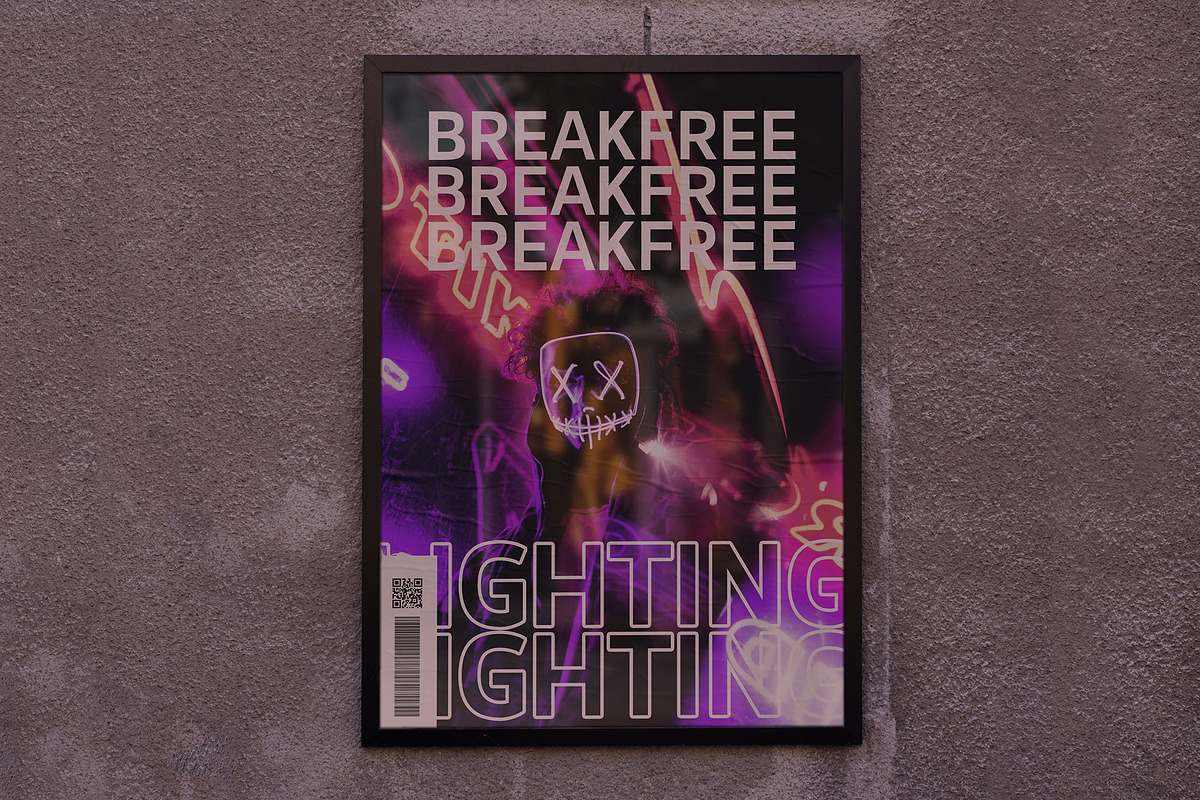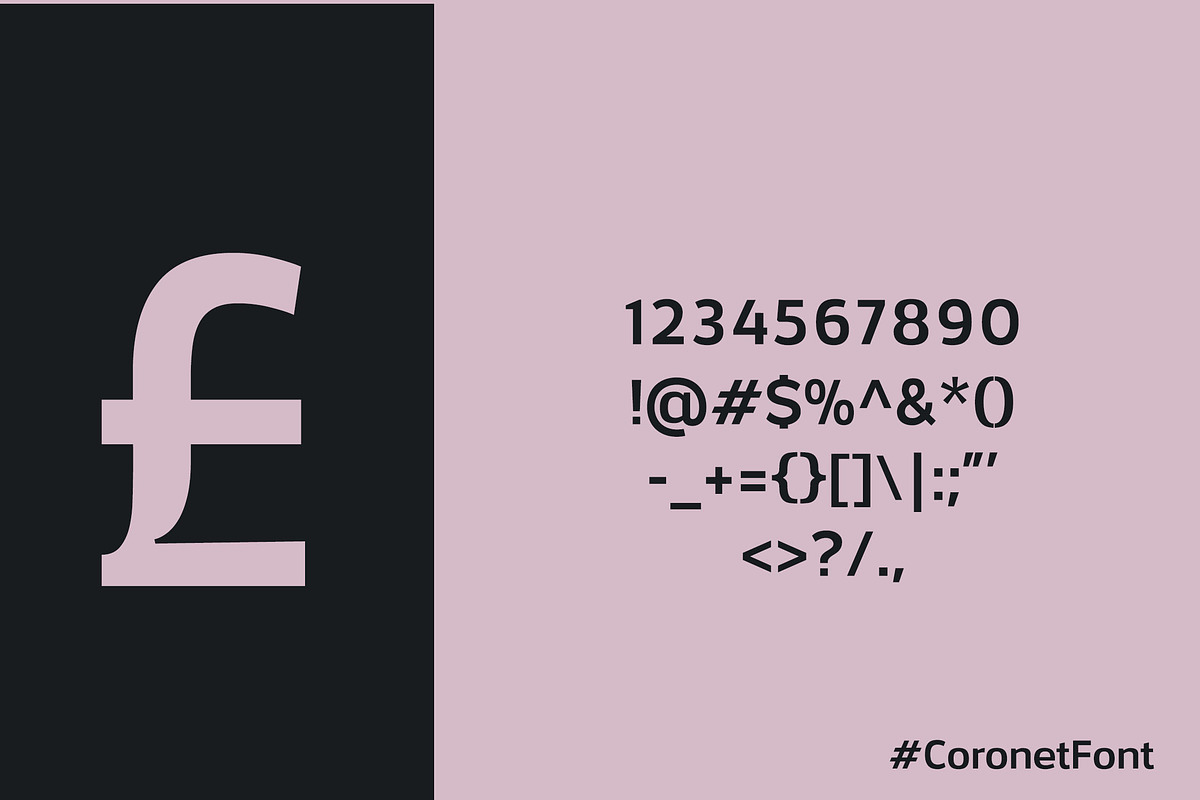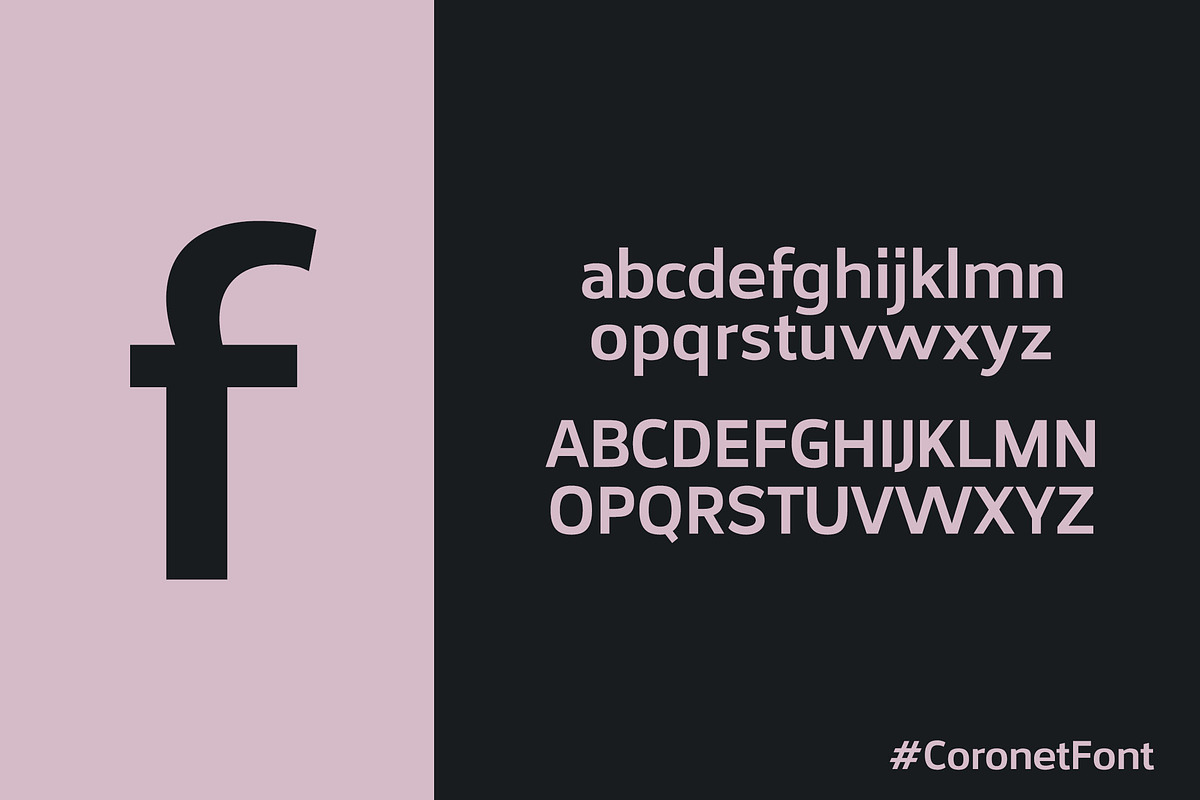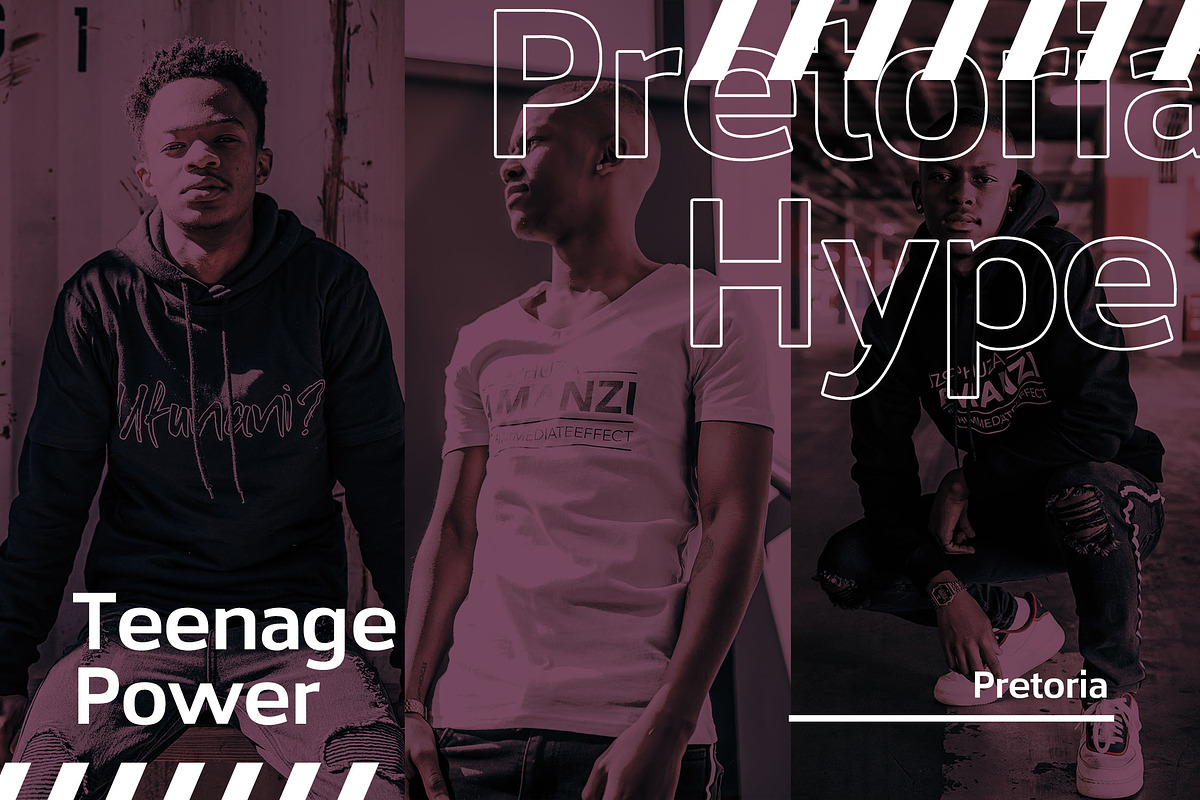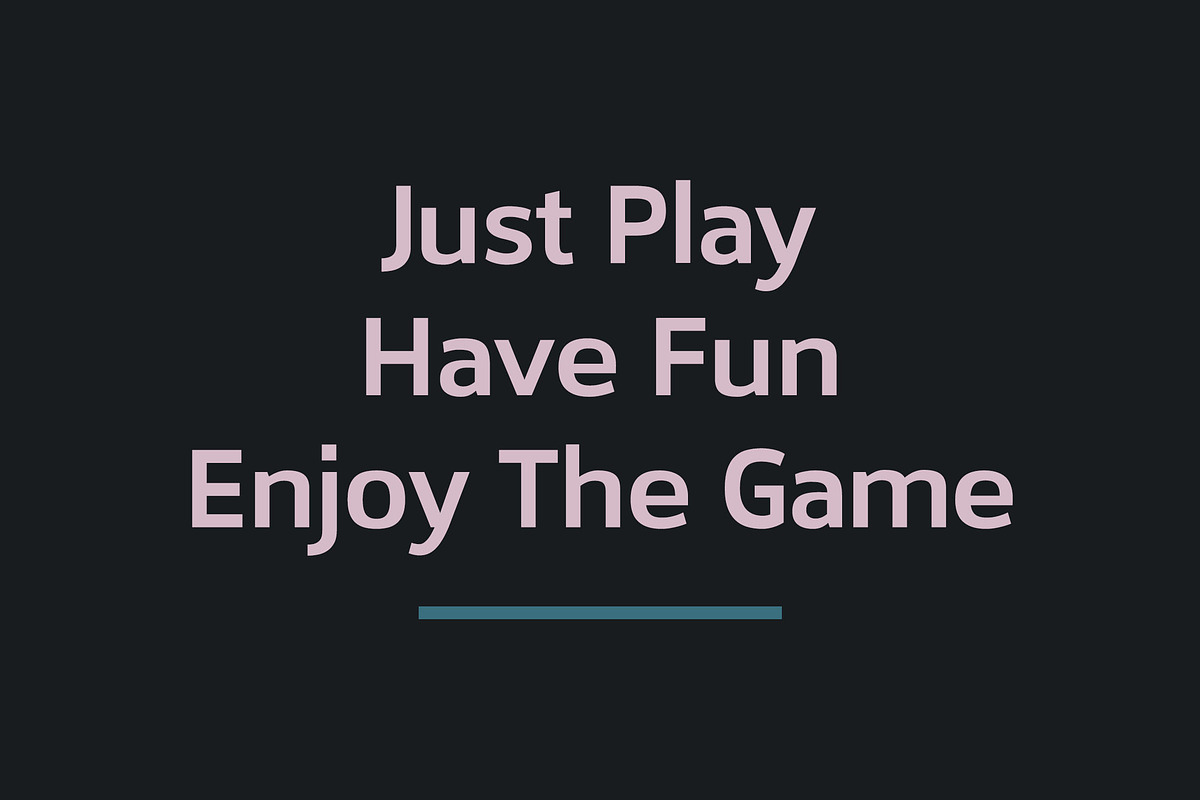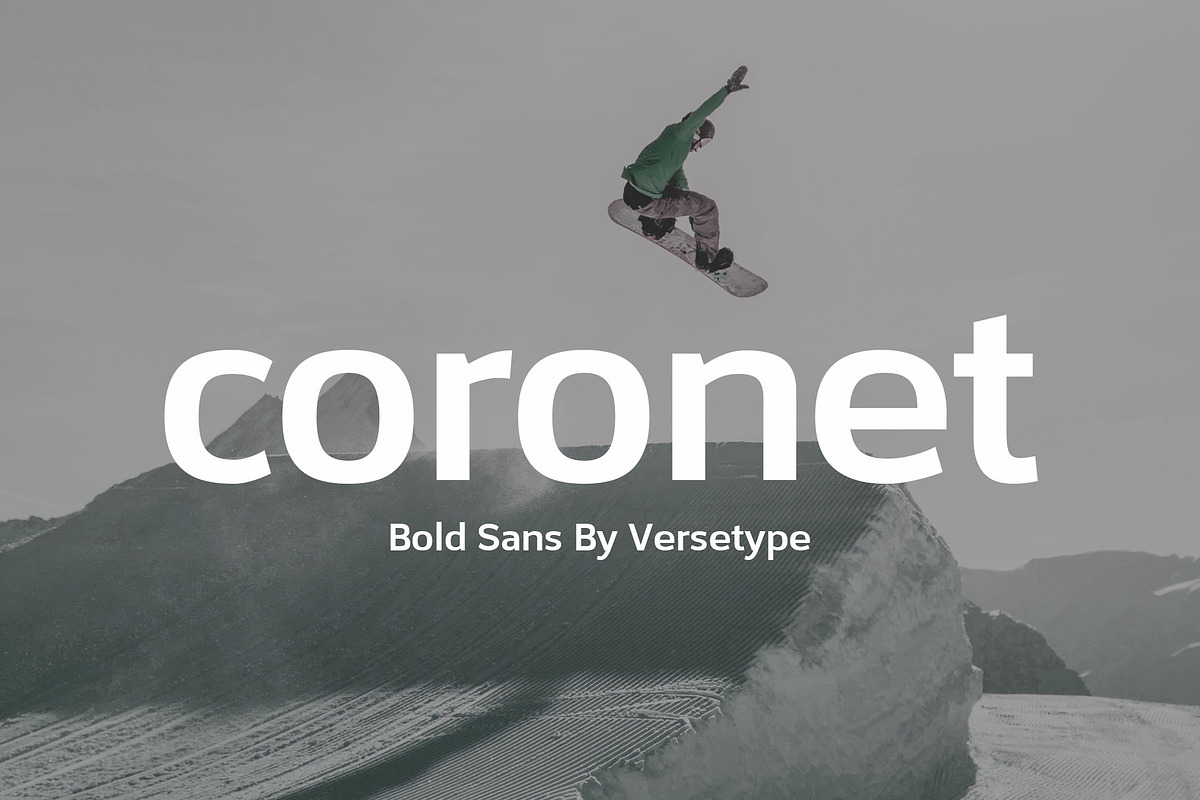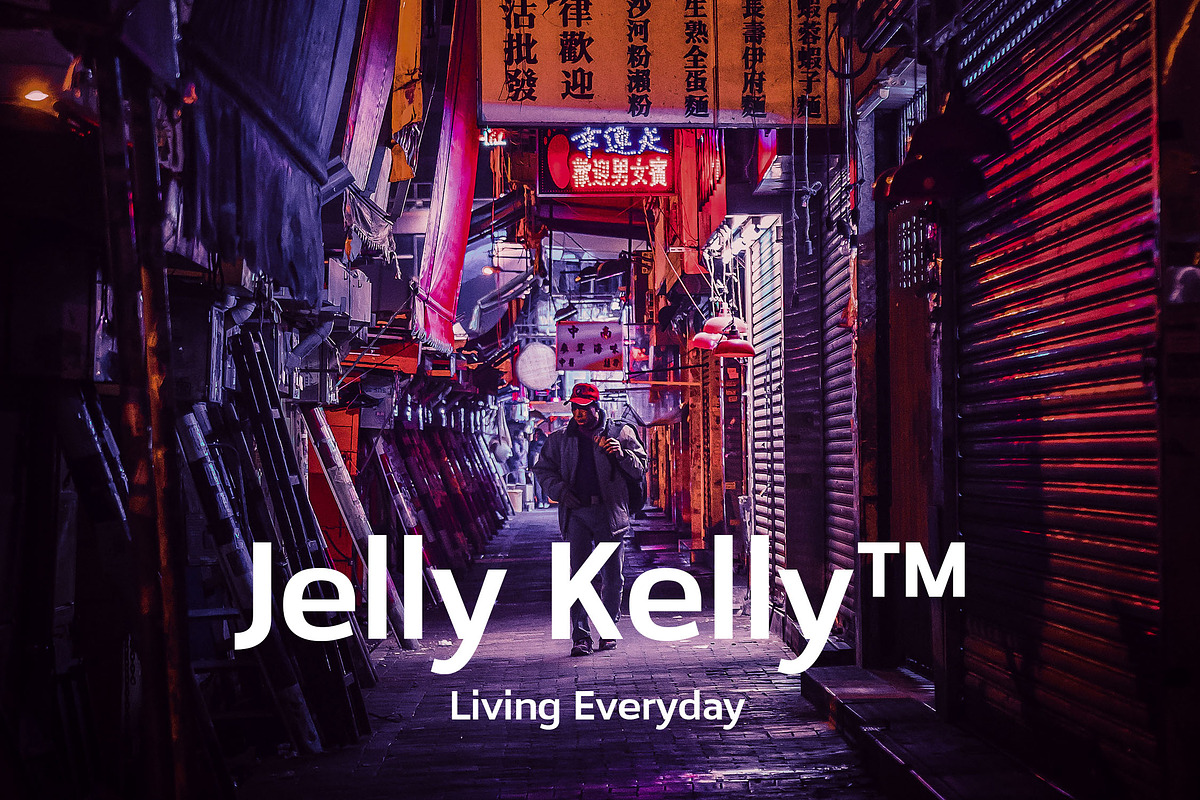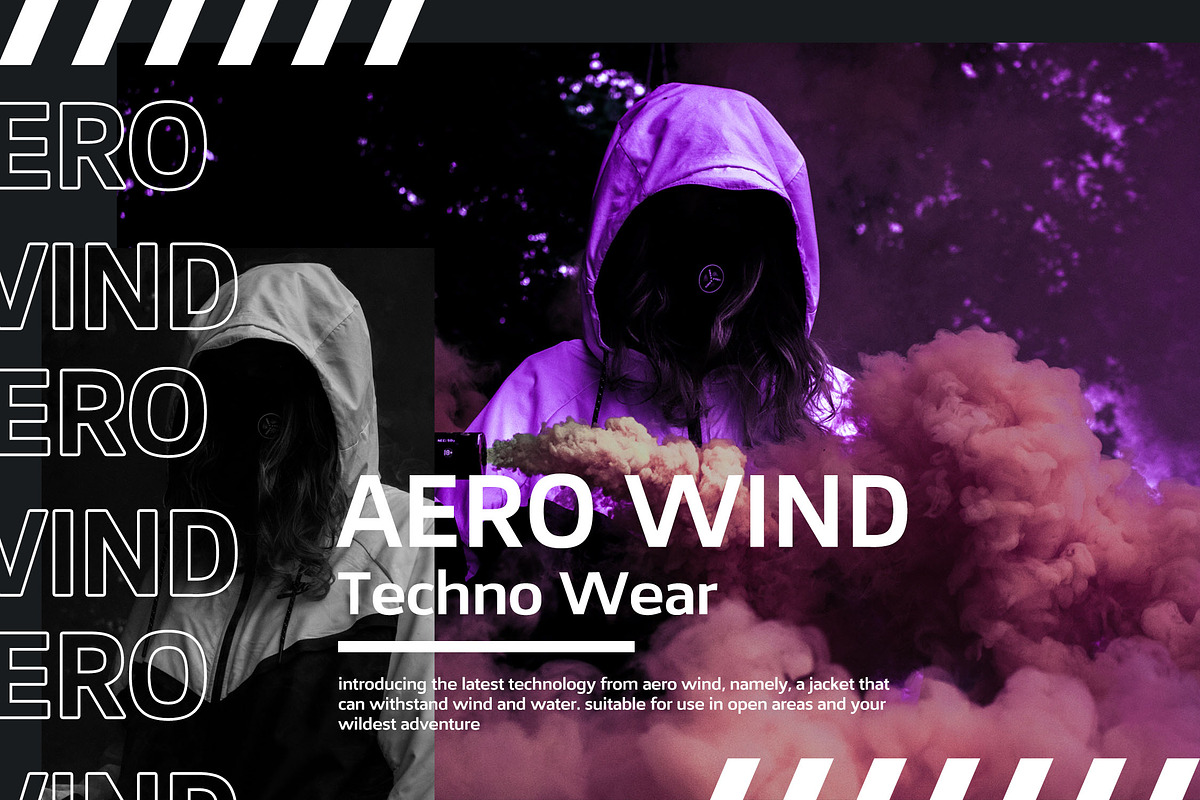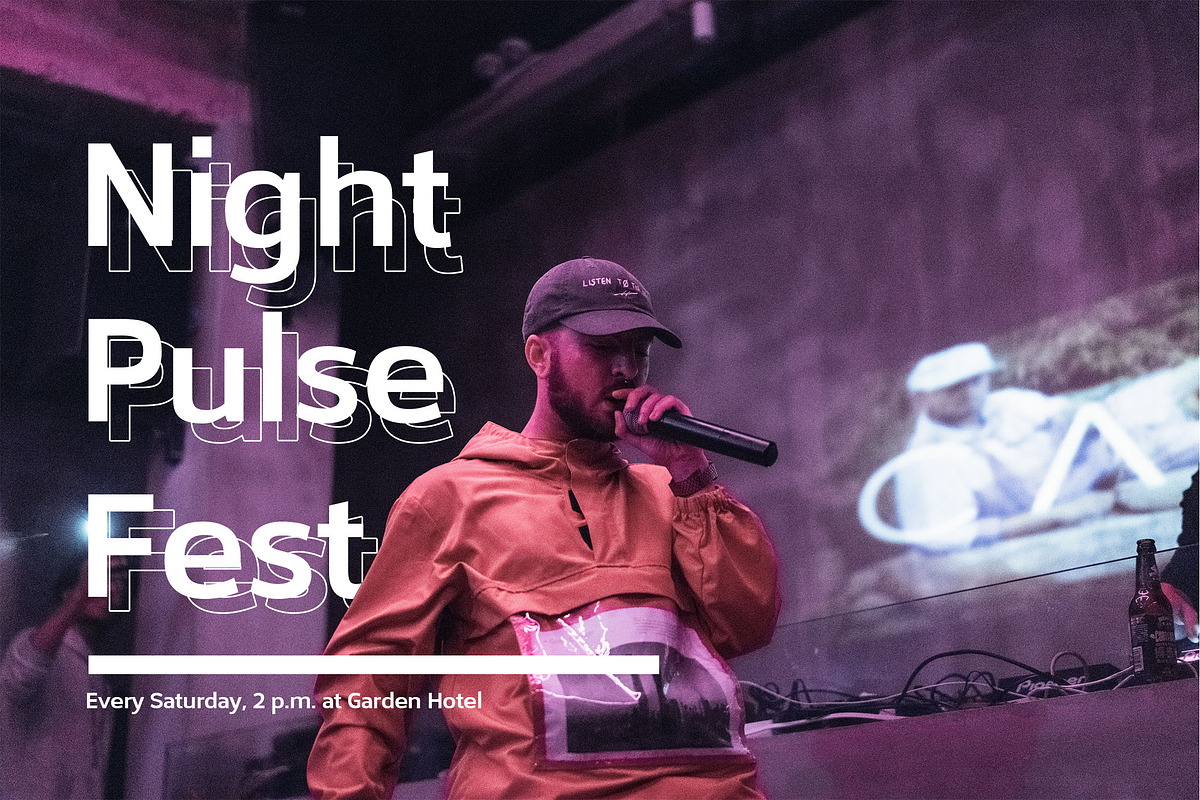
Coronet Bold Sans
Coronet Bold Sans Serif Font
Coronet is perfect for your up coming projects. Such as sporty logo branding, editorial design, hypebeast Fashion, masculine advertising design, and any more.